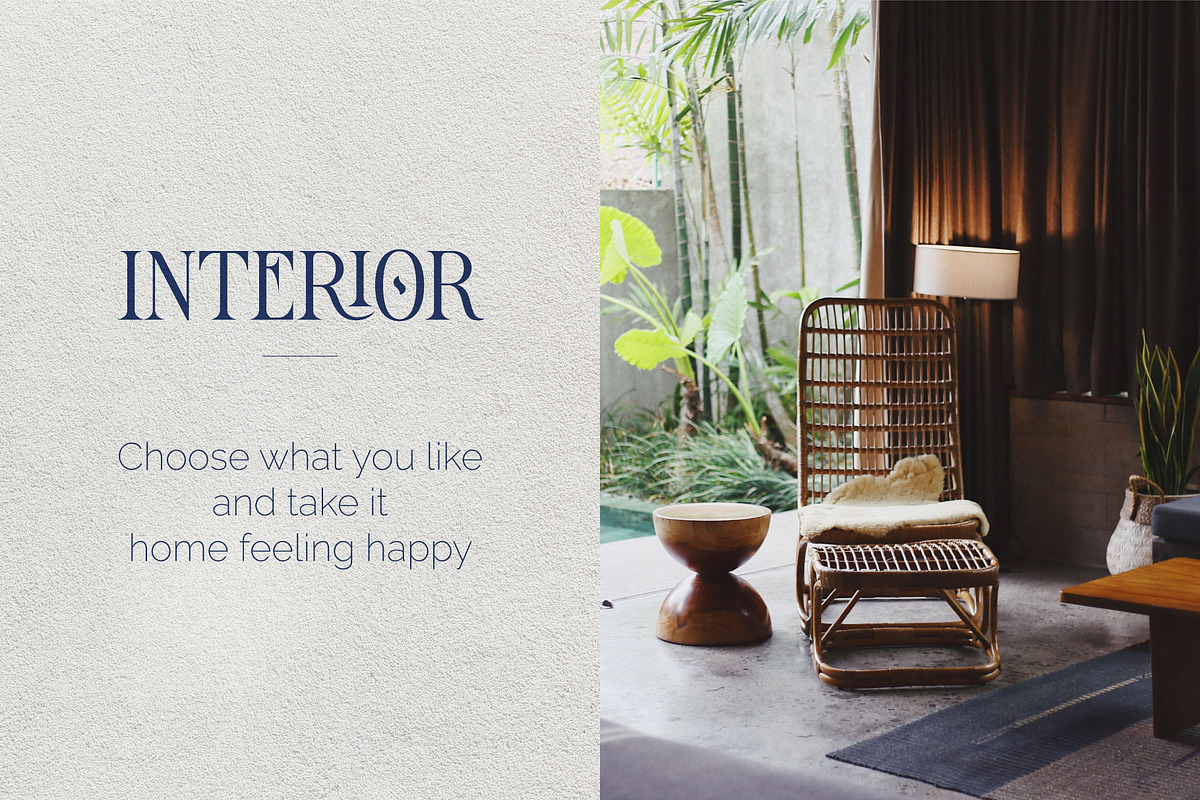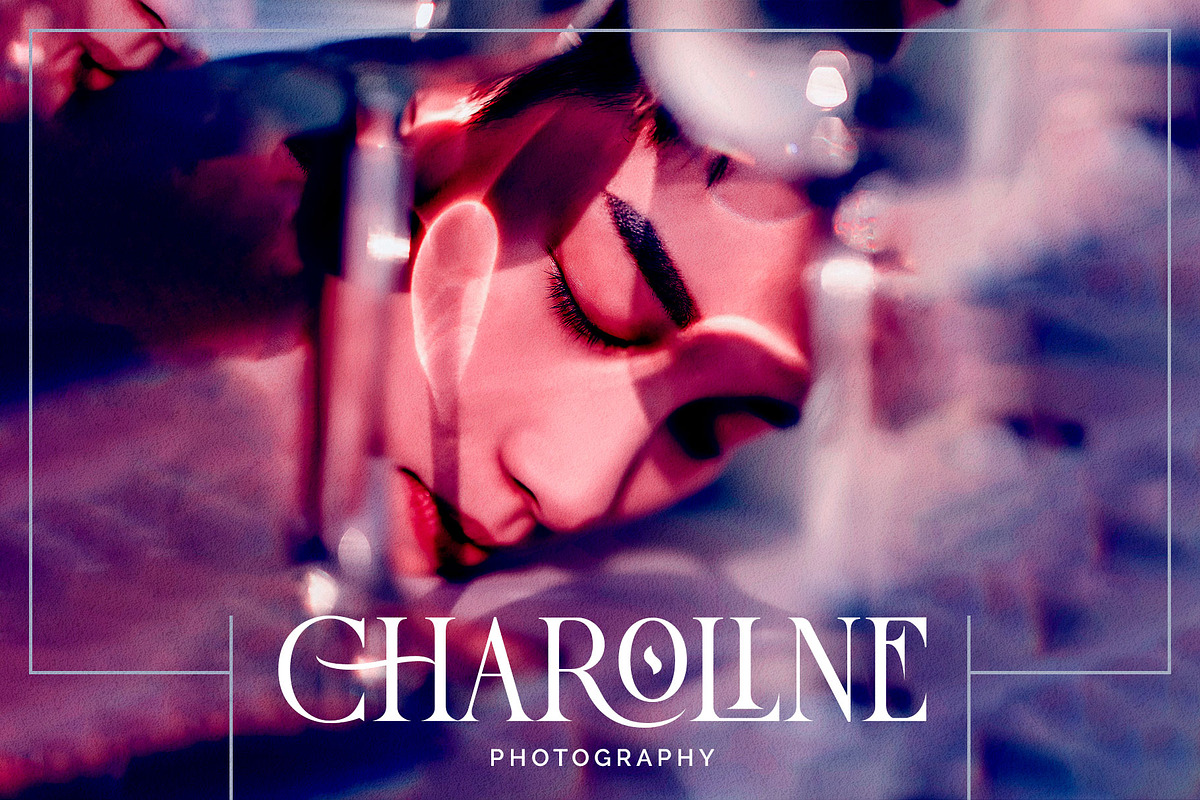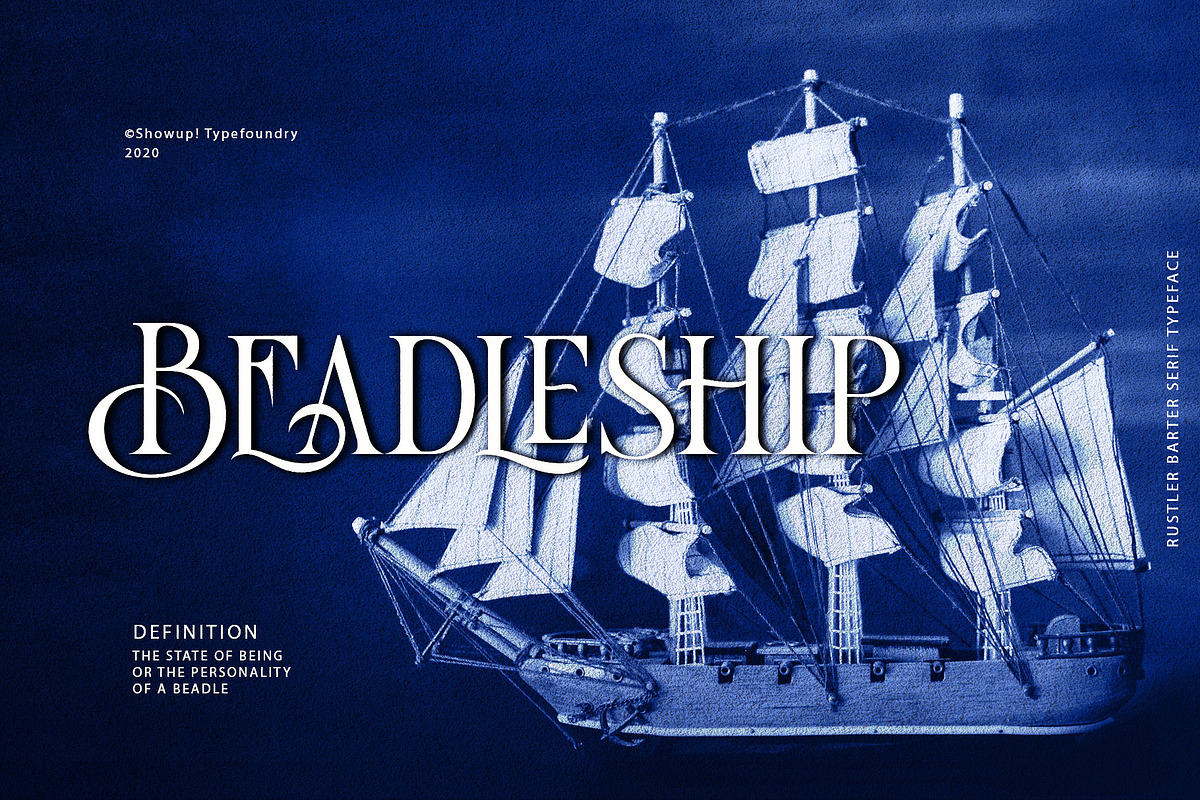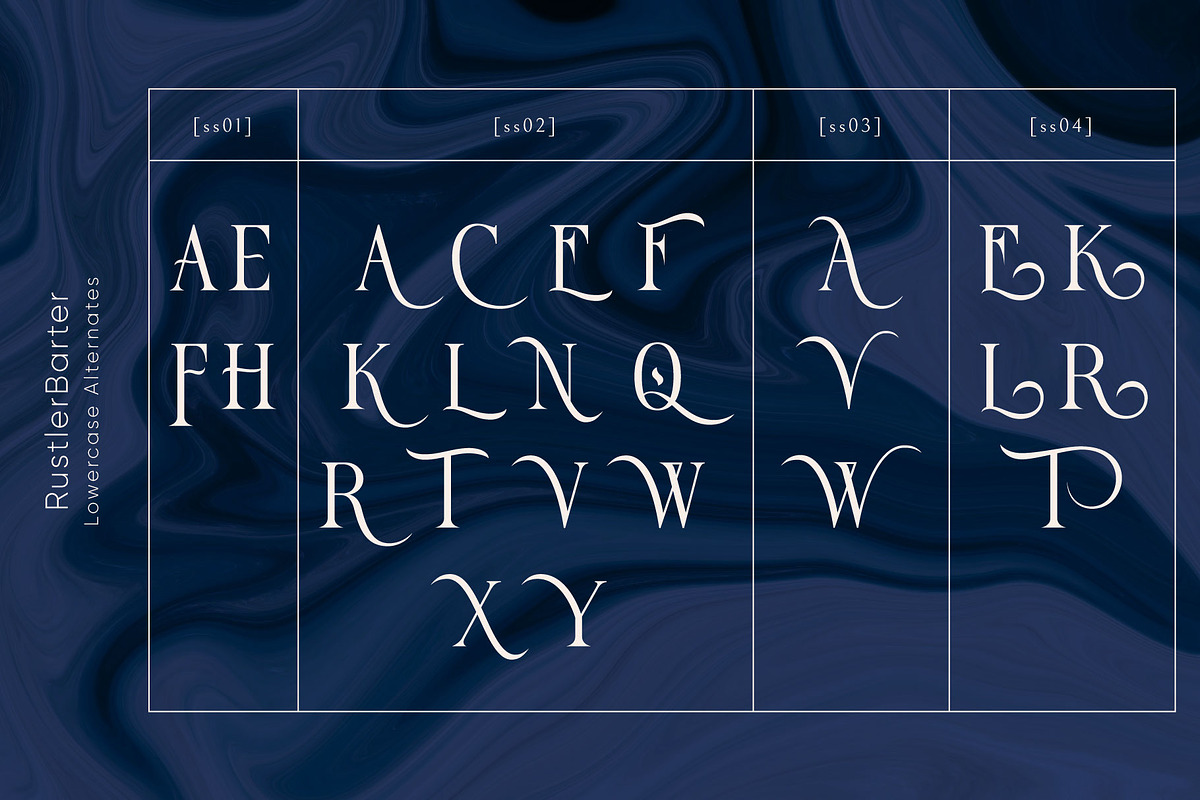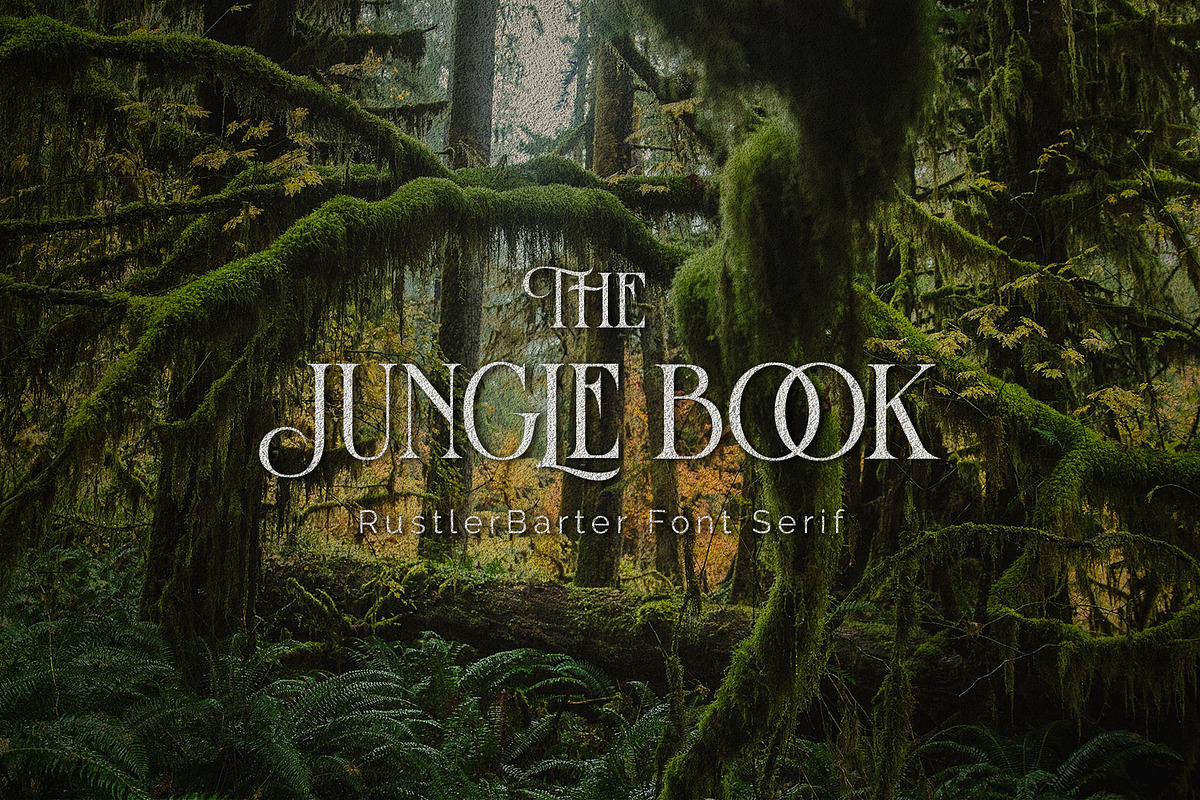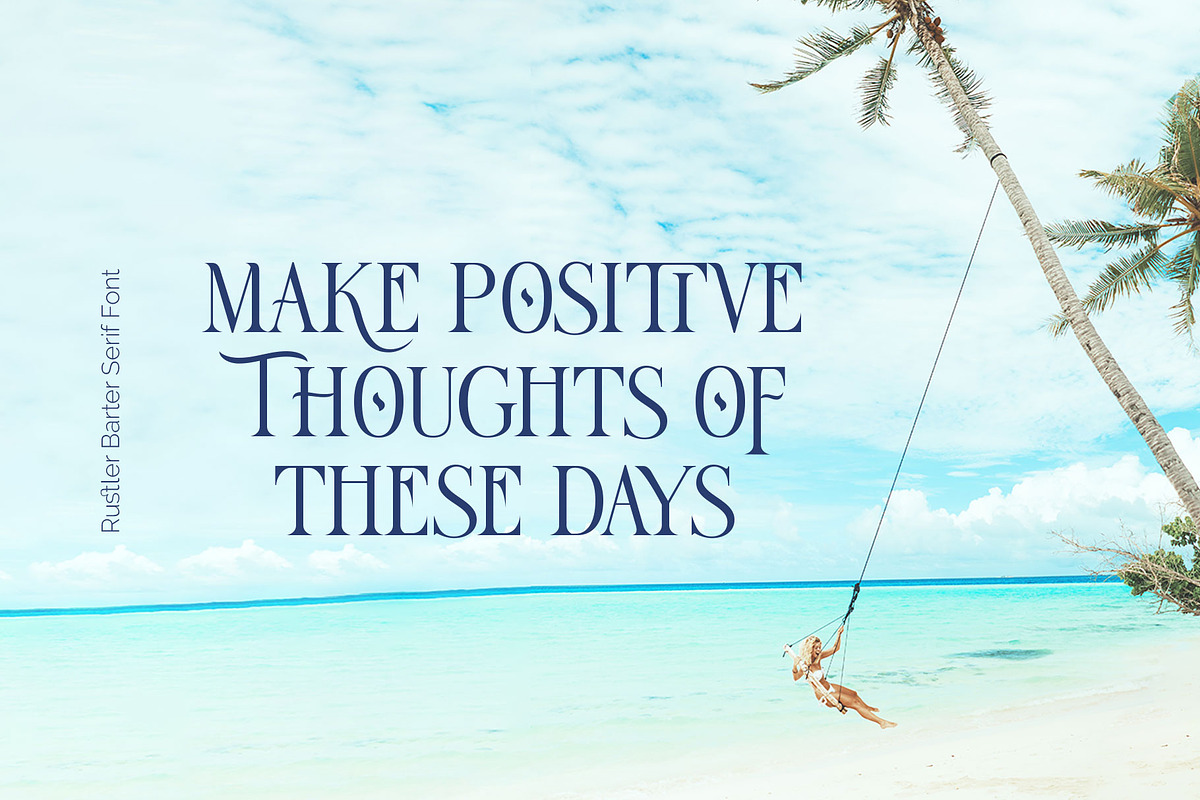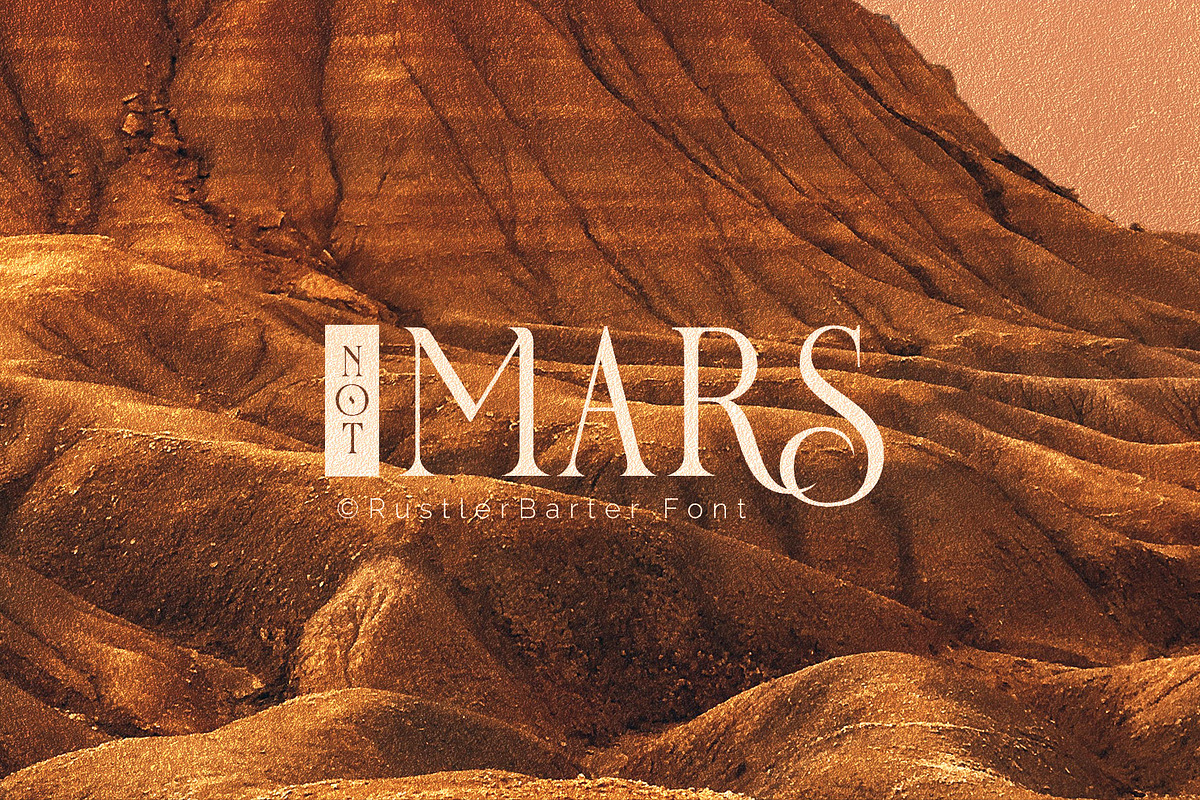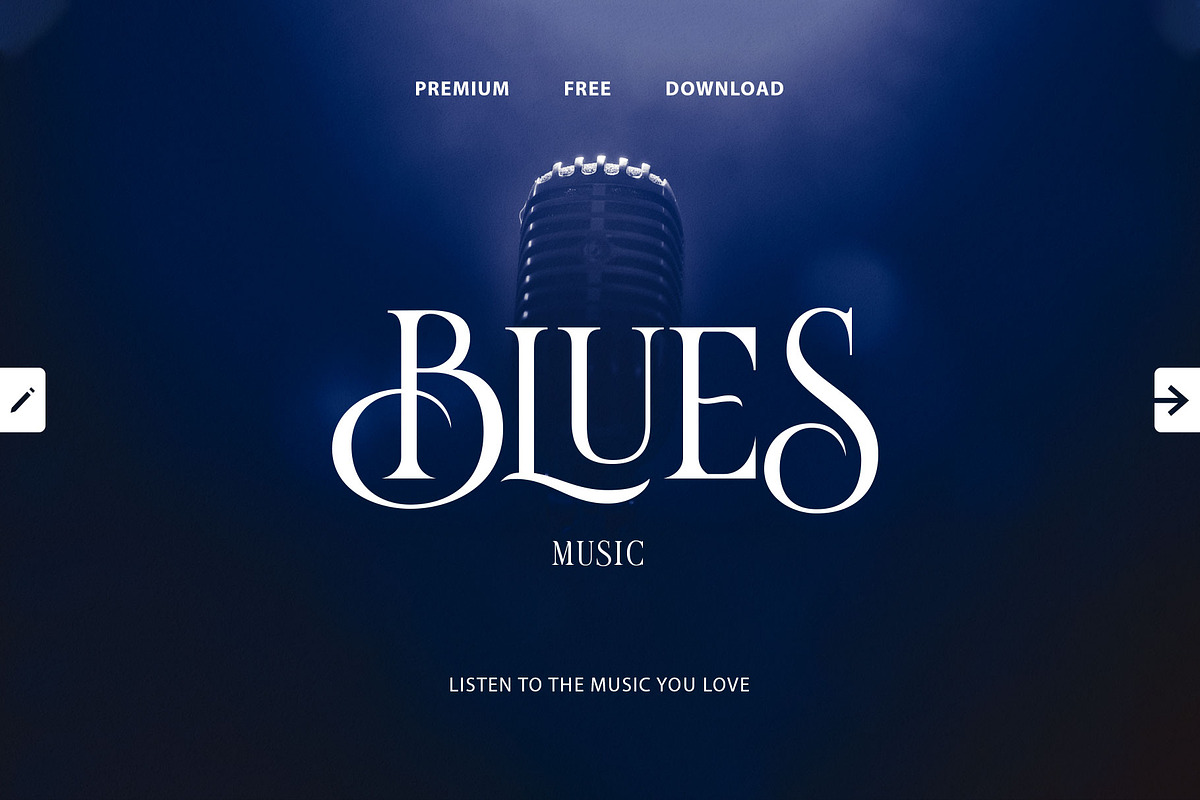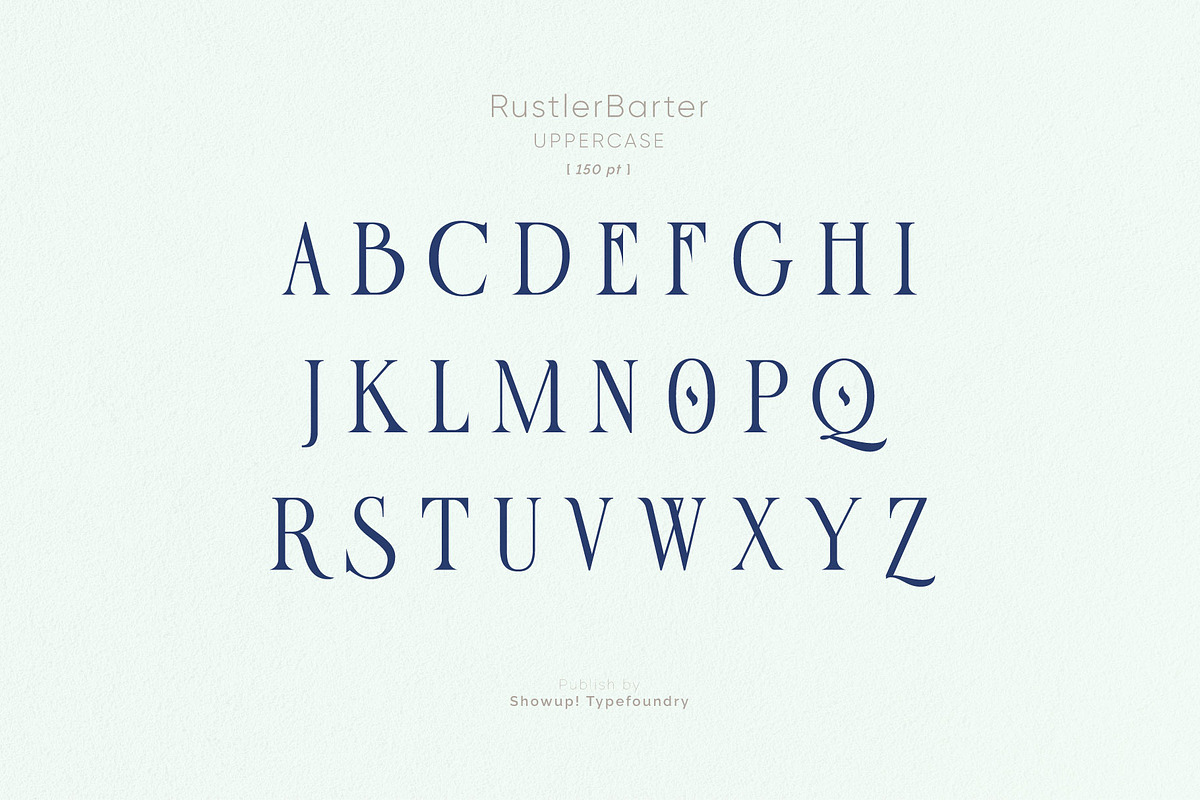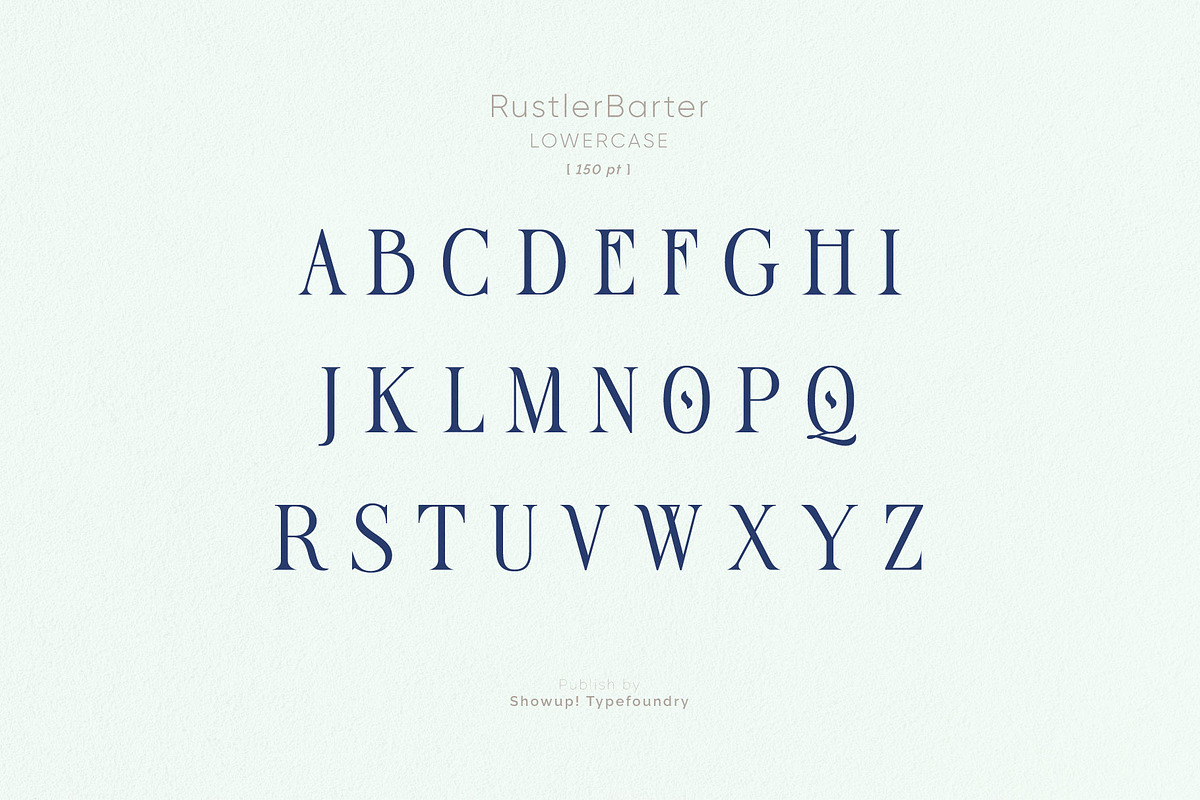
Rustler Barter
Rustler Barter® – Art Deco Display Serif
Introducing Rustler Barter®, a refined Art Deco display serif inspired by the elegance of the 1920s. With its high-contrast letterforms, graceful curves, and sophisticated proportions, Rustler Barter is designed to make a bold statement in luxury branding and editorial design.
Whether you're creating premium logos, fashion campaigns, magazine covers, or elegant packaging, Rustler Barter delivers timeless sophistication with a modern edge.
Luxury Branding
Logos & Logotypes
Editorial Design
Fashion & Beauty Brands
Magazine Covers
Invitations
Posters & Headlines
Hotel & Restaurant Branding
High-End Product Labels
2 Styles (Regular & Slanted Oblique)
Elegant Art Deco Display Serif
Standard Ligatures